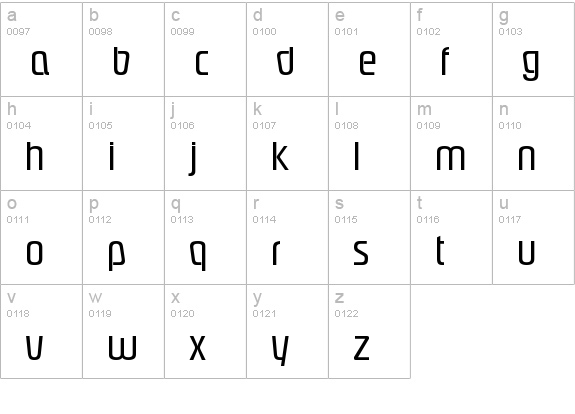
PasadenaSerial-Regular is the standard, neutral variant in the PasadenaSerial typeface family \xE2\x80\x94 well suited to general body text, paragraphs, and standard typographic work.
PasadenaSerial-Regular font is a modern and versatile typeface that exudes elegance and sophistication. Its clean lines and balanced proportions make it suitable for a wide range of design projects, from branding to editorial layouts. This font strikes the perfect balance between classic and contemporary, making it a great choice for both print and digital applications. And the best part? PasadenaSerial-Regular font is available for free download at FontsMarket.com. Whether you're a professional designer or a hobbyist looking to elevate your projects, this font is a valuable addition to your typography toolkit. Don't miss out on the opportunity to enhance your work with the timeless beauty of PasadenaSerial-Regular font. Download it today and start creating stunning designs with ease.